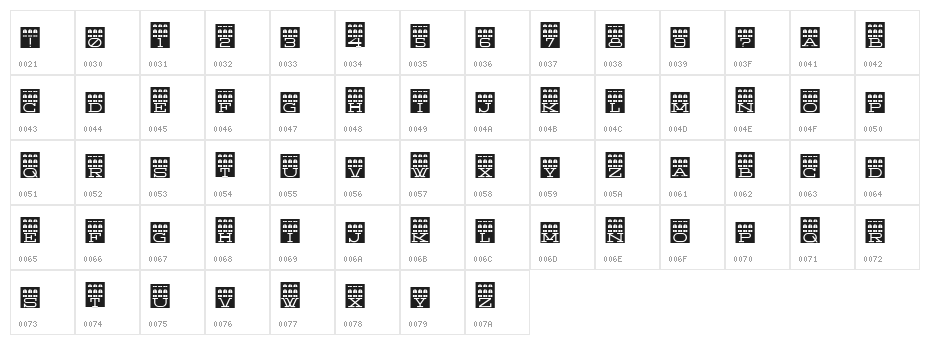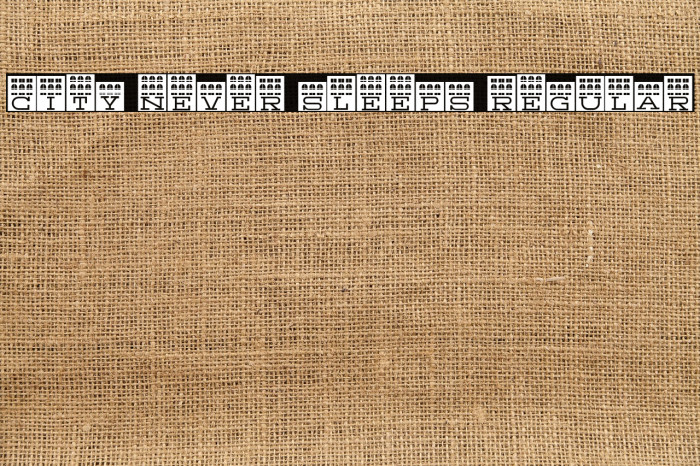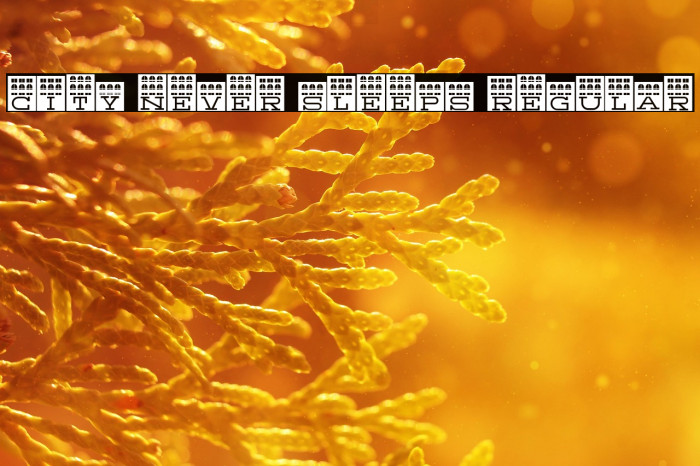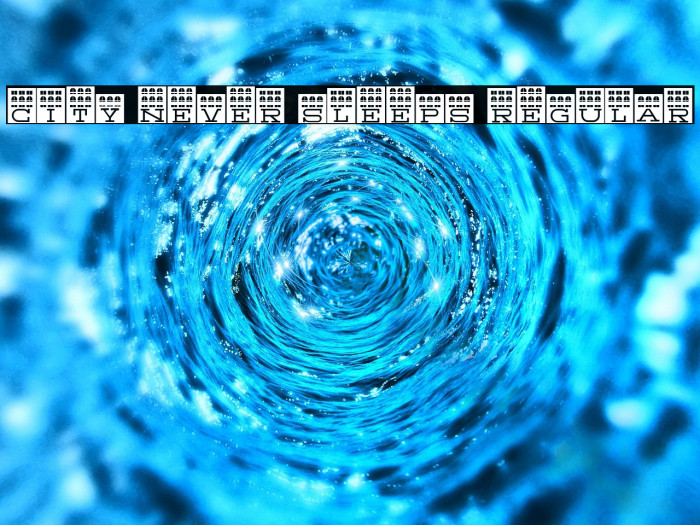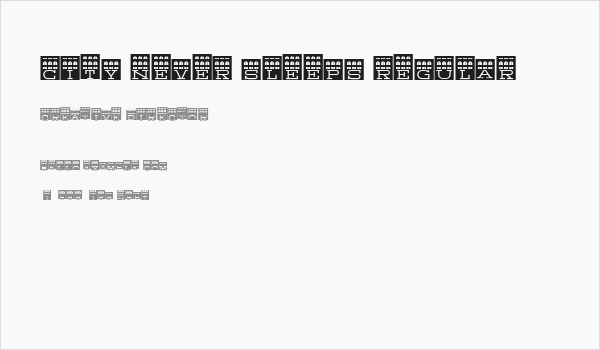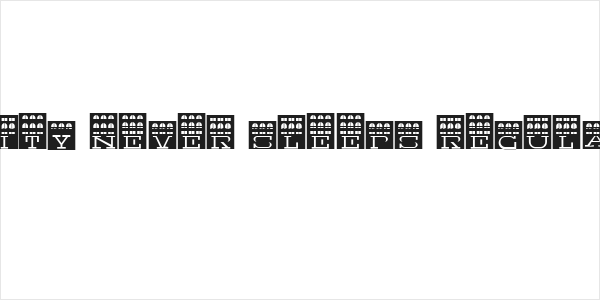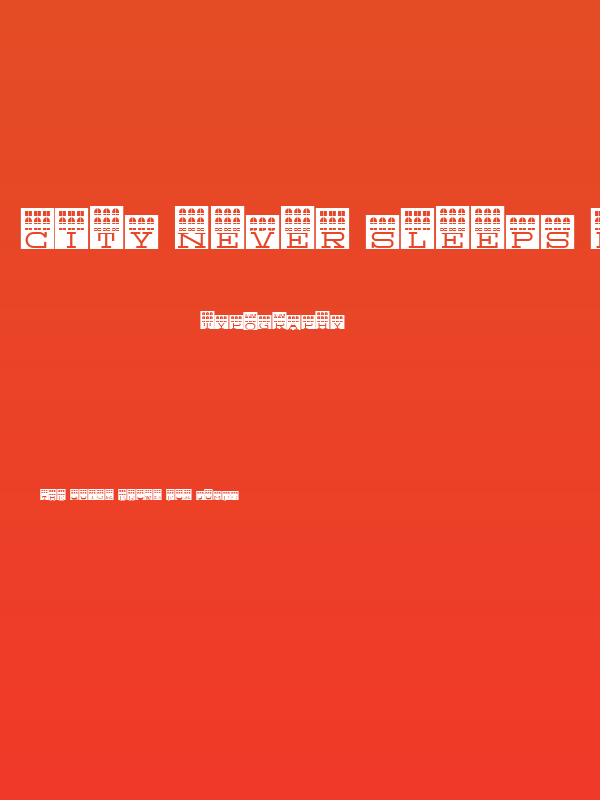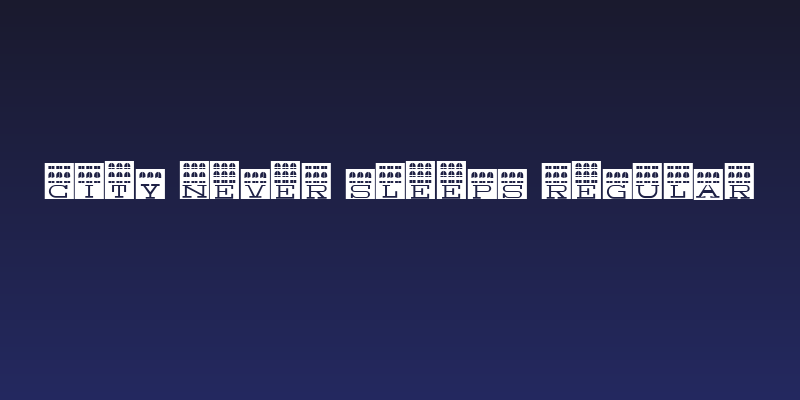
City Never Sleeps Regular Font
City Never Sleeps Regular Description
This font features a unique design where each character is embedded within a stylized building silhouette, complete with windows and architectural details. The uppercase letters are bold and structured, resembling skyscrapers, which gives the font a distinct urban feel. The numbers and special characters follow the same architectural theme, maintaining consistency throughout the set. The font's design is highly decorative, making it ideal for projects that require a strong visual impact. The characters are evenly spaced, ensuring readability despite the complex design. This font is perfect for creative projects that aim to capture the essence of a bustling cityscape.
| Proposed Projects | Ideal for city-themed posters, urban event invitations, architectural branding, and creative headlines. |